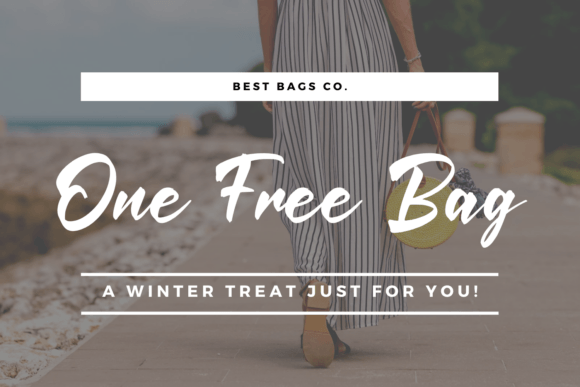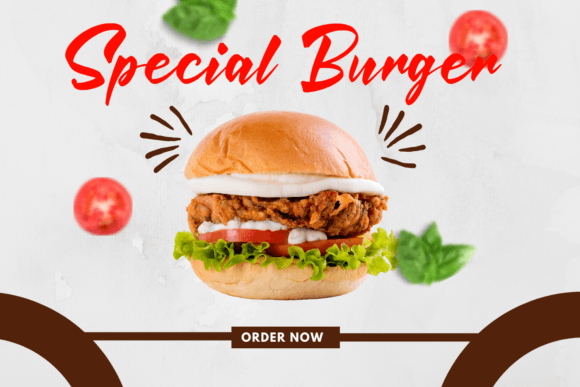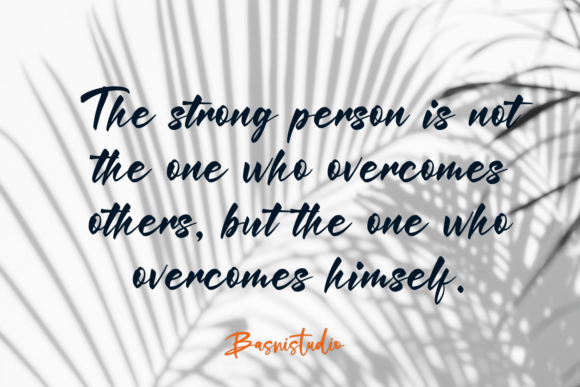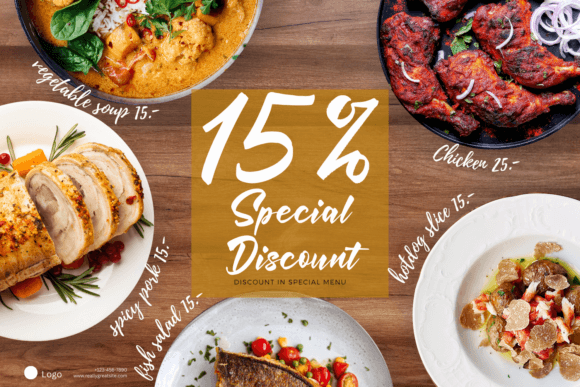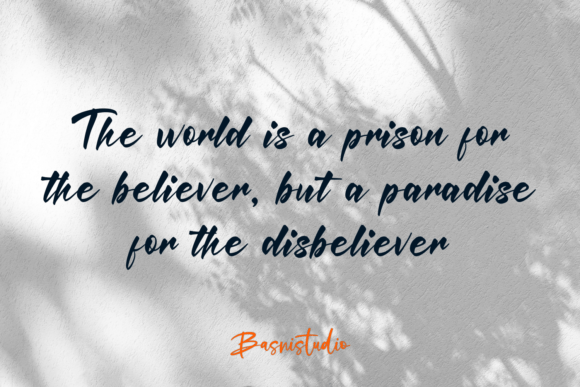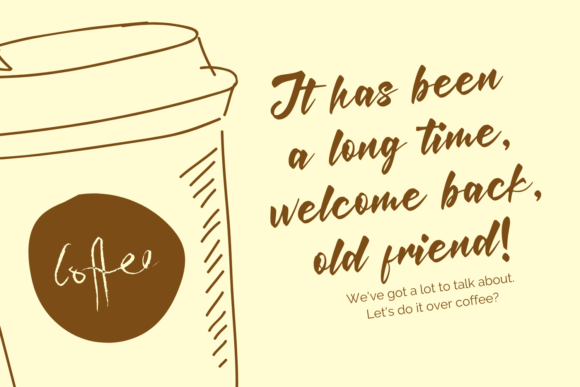
Introducing Cloud Online Font: Add a Cheerful Touch to Your Designs
Are you looking for a font that can add a playful and fun vibe to your creative projects? Look no further than Cloud Online Font! This delightful marker font is perfect for designers, crafters, and anyone who wants to add a cheerful touch to their posters, invitations, and other designs.
What is Cloud Online Font?
Cloud Online Font is a digital font that mimics the look of writing with a thick marker. Its playful and casual style makes it ideal for a wide range of creative projects, from posters and invitations to crafts and DIY projects. The font’s bold and expressive lines give it a friendly and approachable feel that’s sure to capture the attention of your audience.
Key Features of Cloud Online Font
- Fun and playful style: Cloud Online Font has a carefree and whimsical feel that’s perfect for adding a touch of personality to your designs.
- Marker-like appearance: The font’s thick, expressive lines give it a marker-like appearance that’s reminiscent of handwriting.
- Highly legible: Despite its playful style, Cloud Online Font is highly legible, making it suitable for use in a wide range of applications.
- Versatile: Cloud Online Font can be used for a variety of creative projects, from posters and invitations to crafts and DIY projects.
Uses for Cloud Online Font
Cloud Online Font is a versatile font that can be used in a wide range of creative projects. Here are some ideas to get you started:
- Posters and flyers: Add a playful touch to your posters and flyers with Cloud Online Font.
- Invitations: Use Cloud Online Font to create cheerful and eye-catching invitations for parties, events, and other celebrations.
- Crafts and DIY projects: Cloud Online Font is perfect for use in crafts and DIY projects, such as handmade cards, gift tags, and other paper crafts.
- Social media graphics: Use Cloud Online Font to add a playful touch to your social media graphics, such as Facebook posts, Instagram stories, and Twitter headers.
Tips for Using Cloud Online Font
Here are some tips for getting the most out of Cloud Online Font:
- Use it sparingly: Cloud Online Font is a bold and expressive font, so use it sparingly to avoid overwhelming your design.
- Pair it with other fonts: Cloud Online Font pairs well with other fonts, such as sans-serif fonts and script fonts.
- Experiment with colors: Cloud Online Font looks great in a variety of colors, so don’t be afraid to experiment and find the perfect color for your design.
Cloud Online Font is a fun and playful marker font that’s perfect for adding a cheerful touch to your creative projects. Its bold and expressive lines give it a friendly and approachable feel that’s sure to capture the attention of your audience. Whether you’re a designer, crafter, or DIY enthusiast, Cloud Online Font is a great choice for any project that needs a little extra personality.